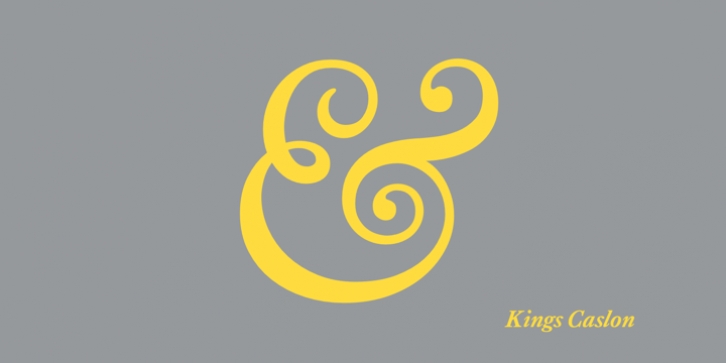
Our King’s Caslon is a contemporary interpretation of a classic, based on samples found in old specimen books. This font family is suitable for all types of design and identity projects which require typographic sophistication. Distinct display and text variations emphasize our commitment to typographic finesse.
The display version is dramatically different from the text font. While the former is designed to attract and charm, the latter is all about functionality. King’s Caslon Display has an extrovert authority that is signified by high contrast between the strokes; there is elegance in the curves and in the treatment of the serifs.
King’s Caslon Text is the quiet cousin that will perform when you need to read page after page. Together they are an unbeatable team. The Standard Edition font includes a complete Latin Extended A character set, but see the Typographic Edition for additional OpenType features.